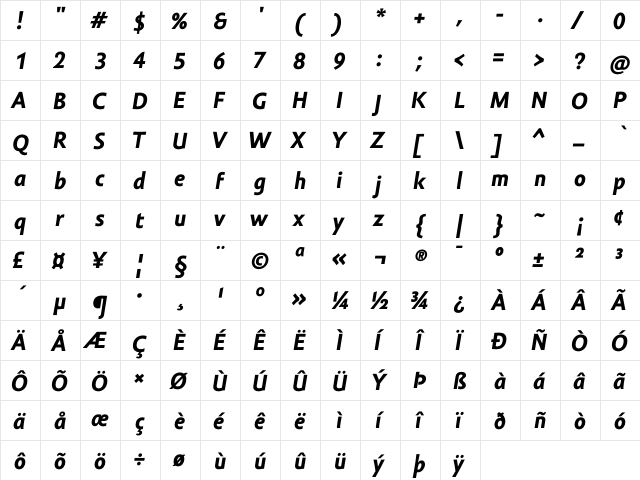
Amor Sans Text Pro Bold Italic
| Designer | Frantisek Storm |
Design Context for Amor Sans Text Pro Typeface
Amor Sans Text Pro is a composed and adaptable typeface that performs quietly and consistently across a wide range of design contexts. Its italic angle brings a sense of urgency and motion to the letterforms. The heavy weight commands attention and anchors typographic hierarchies.
Pro Tip: Use Amor Sans Text Pro for emphasis, pull quotes, and subheadings where its slanted energy can add rhythm to the layout.